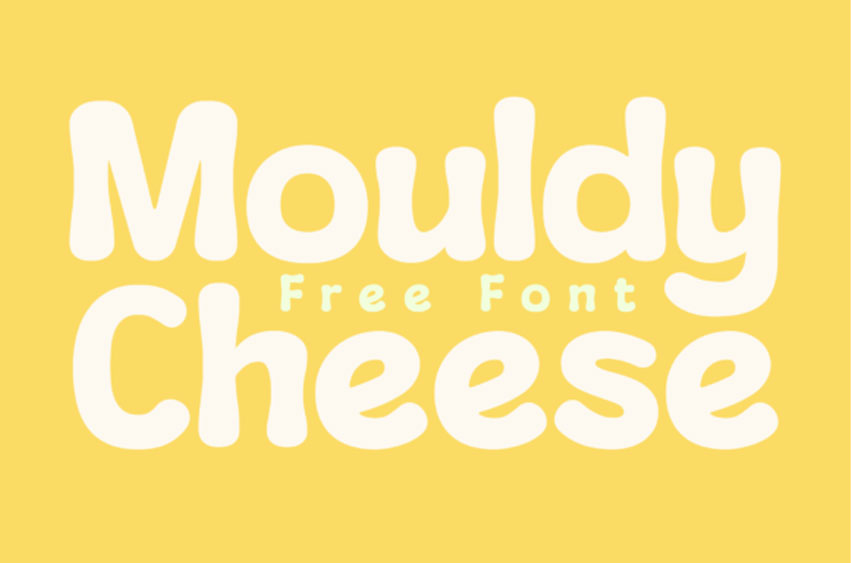
Mouldy Cheese Font
Mouldy Cheese Font is a cool, fancy-style display font. Use it to add that special fancy touch to any design idea!
It can be used for logos, branding, invitations, stationery, wedding designs, social media posts, and much more!